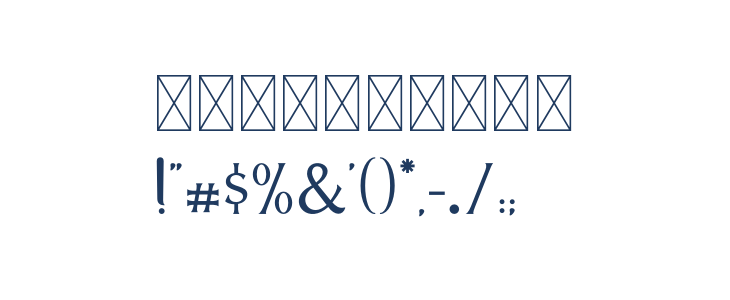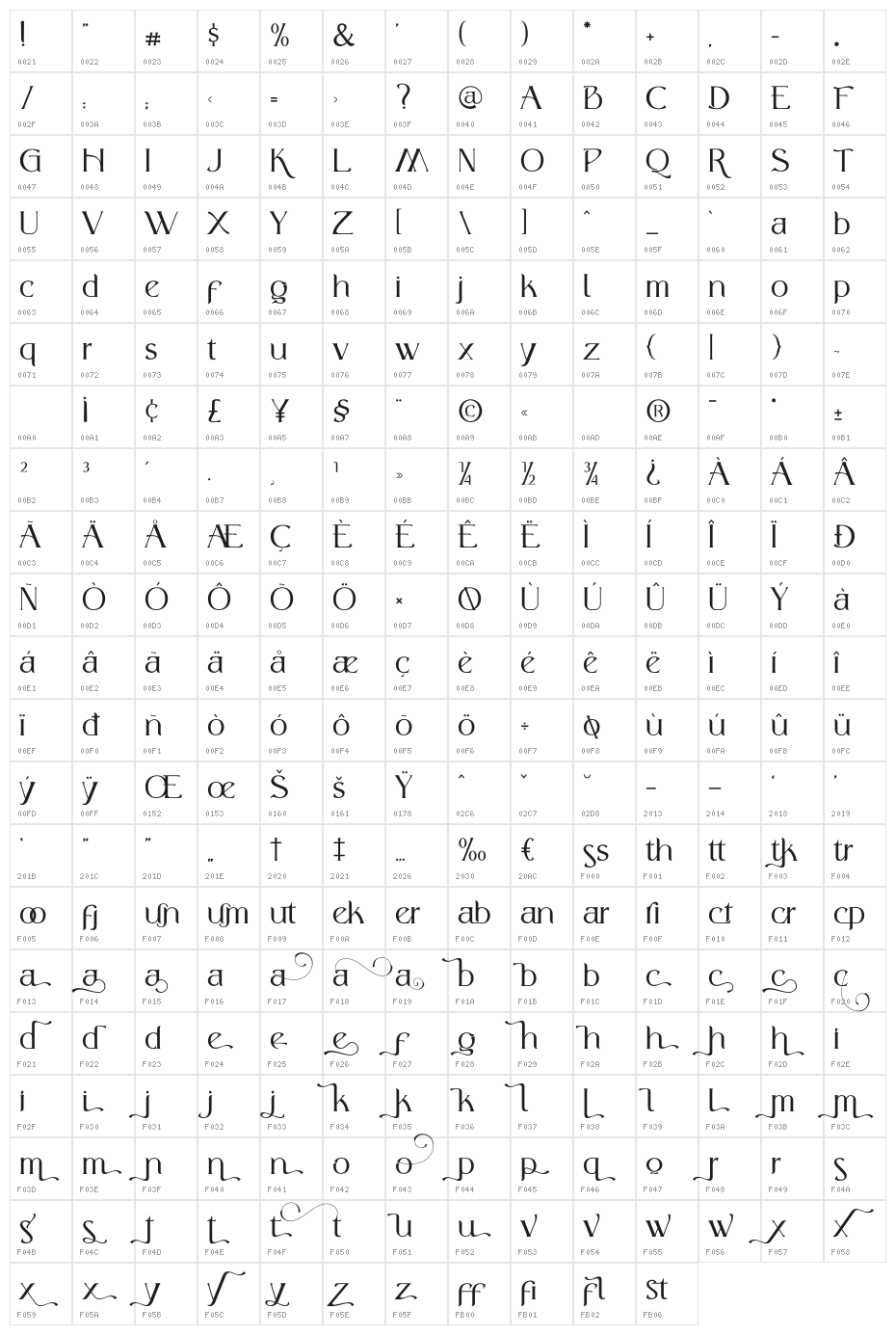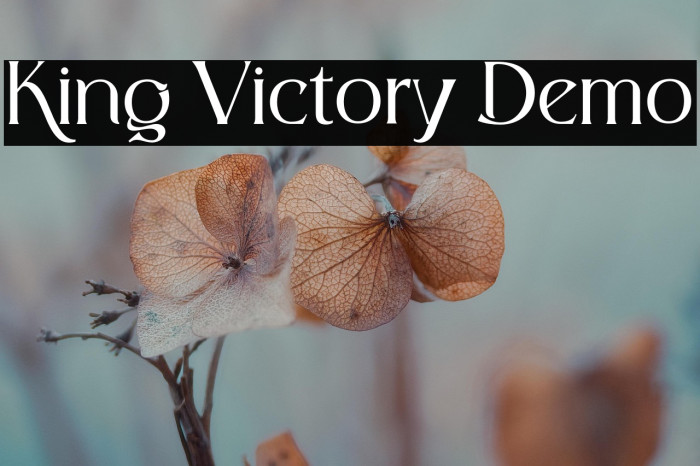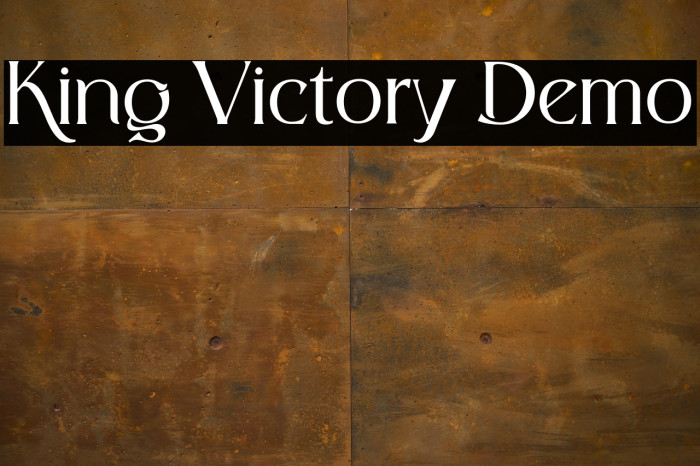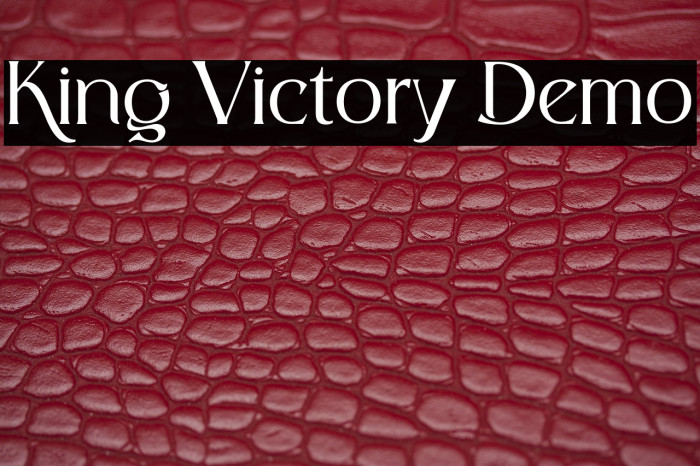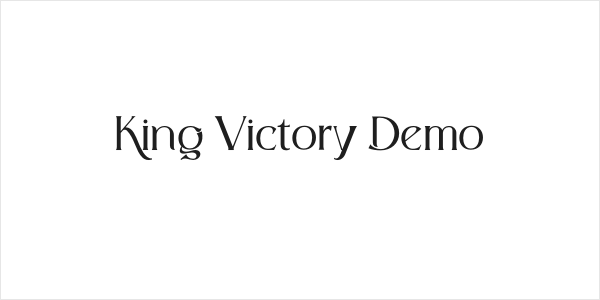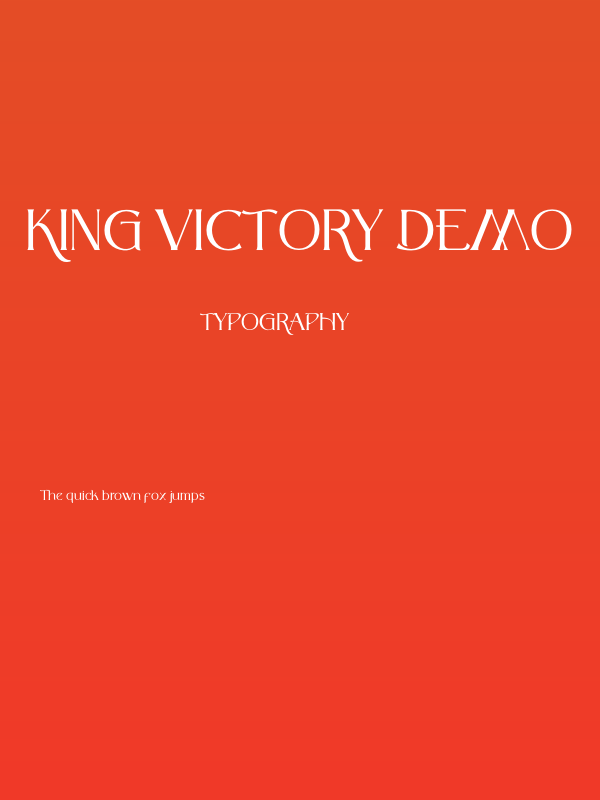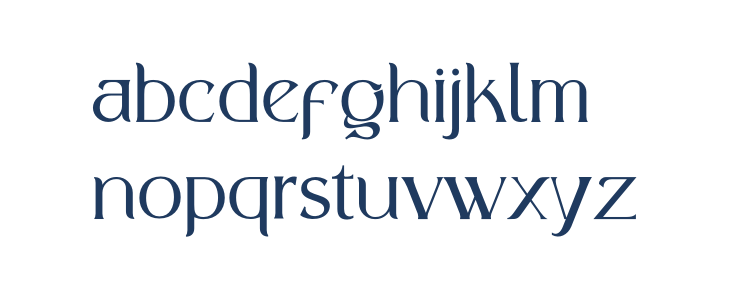
King Victory Demo Font
King Victory Demo Description
This font exhibits a unique blend of modern and classic styles, characterized by its elegant and sophisticated letterforms. The uppercase letters feature sharp, angular serifs and a distinct contrast between thick and thin strokes, giving them a refined and stylish appearance. The lowercase letters maintain a more traditional form with subtle curves and a balanced structure, ensuring readability while retaining an artistic flair. The numerals and special characters are designed to complement the overall aesthetic, with consistent stroke weights and a cohesive style that ties the entire typeface together. This font's design is both versatile and distinctive, making it suitable for a variety of creative applications.
| Overall Style | Modern Classic |
| Use Case | Logos, Headlines, Editorial Design |
| Proposed Projects | Ideal for luxury branding, editorial design, wedding invitations, and high-end product packaging. |